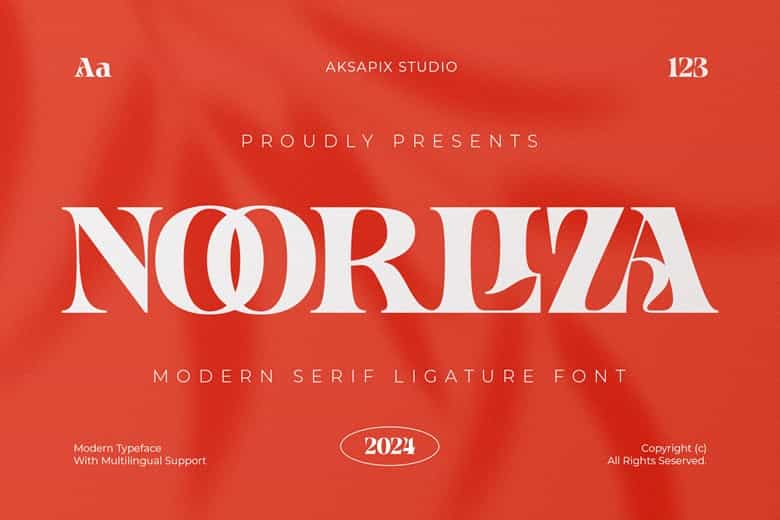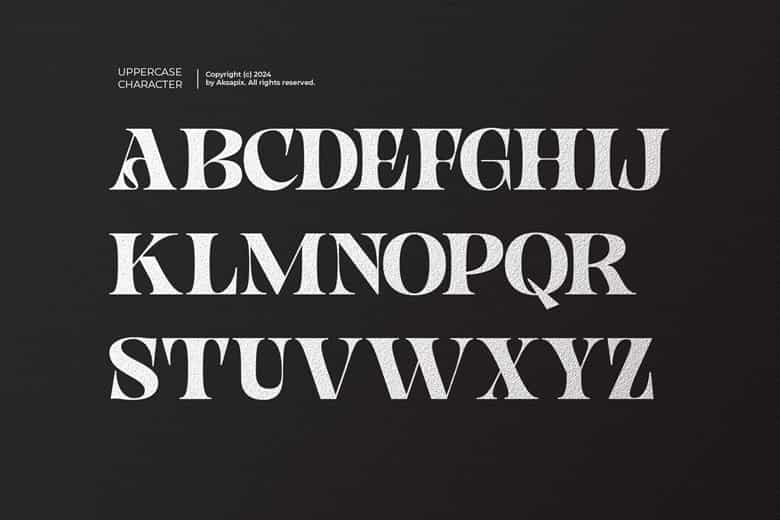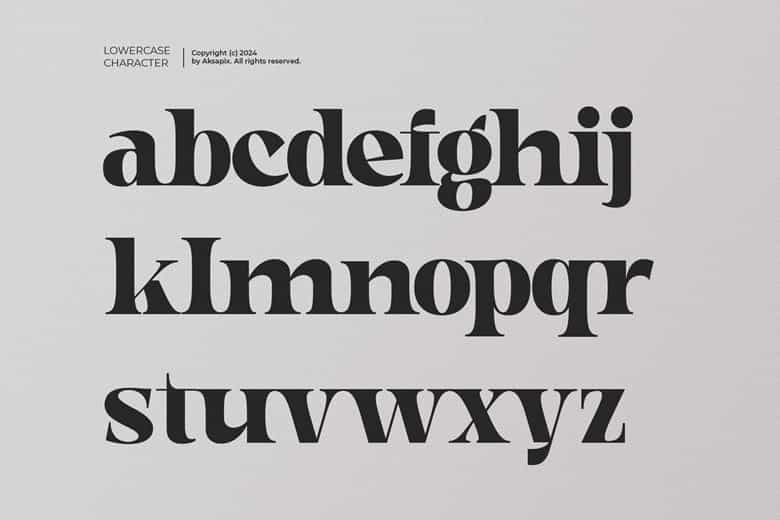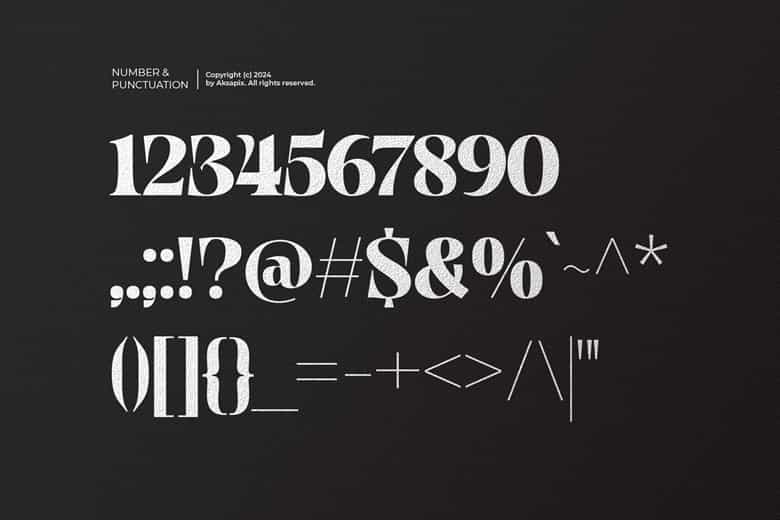
Meet Noorliza – modern serif ligature font an elegant yet stylish font that combine traditional aesthetics with minimalist approach. Noorliza is intended to add elegance to your designs with its properly constructed ligatures and a diverse character set. If you’re involved in branding, editorial design, or any other form of design, this font is the perfect fit for you.